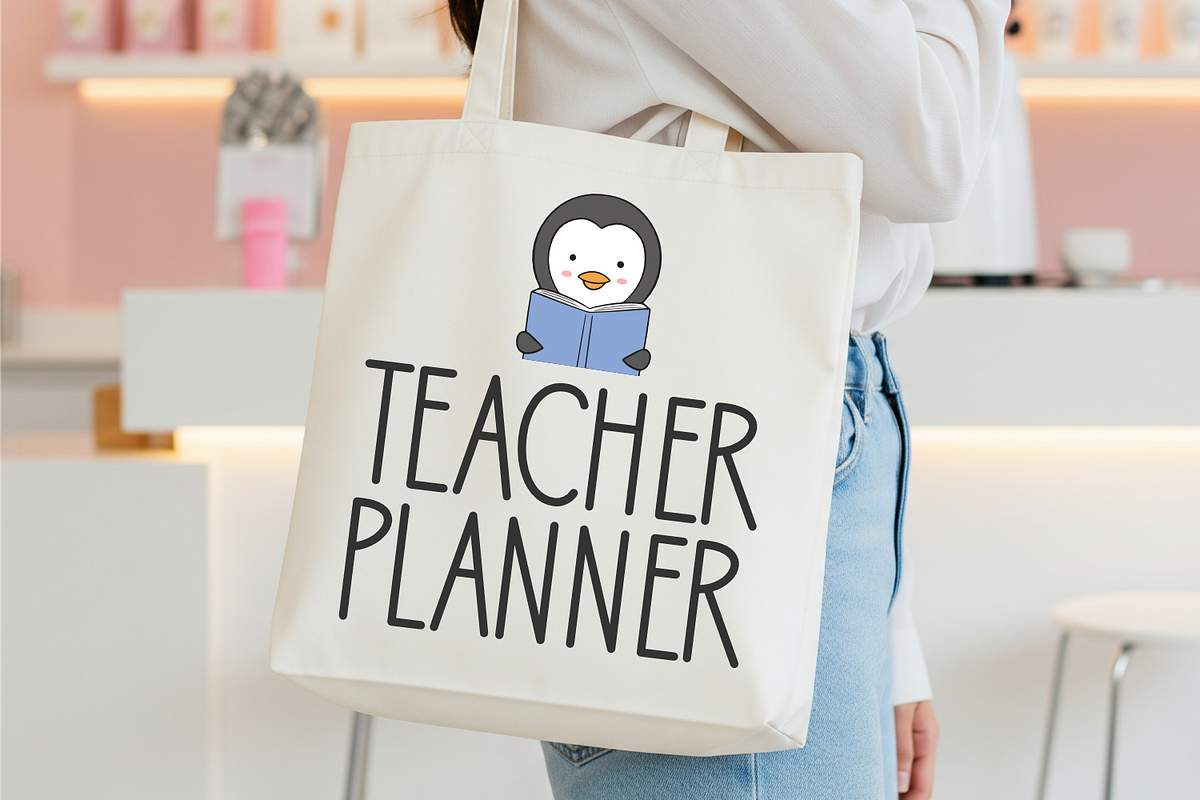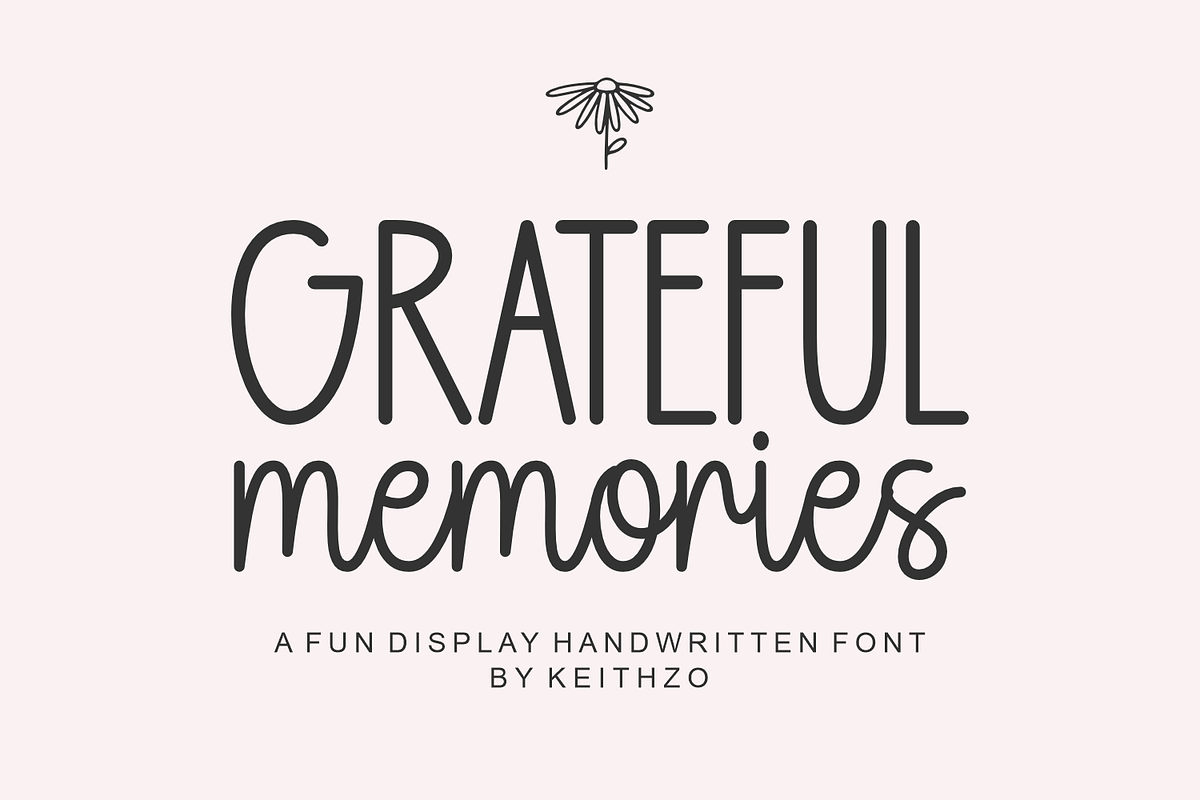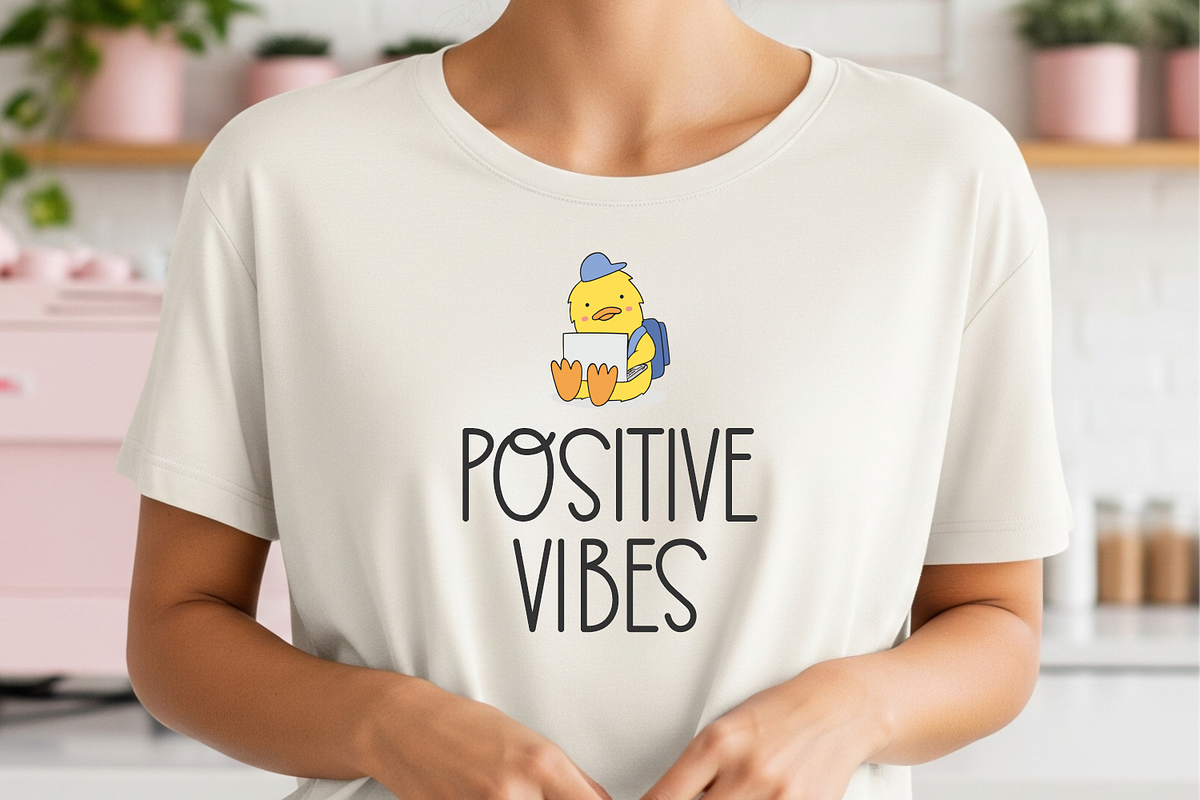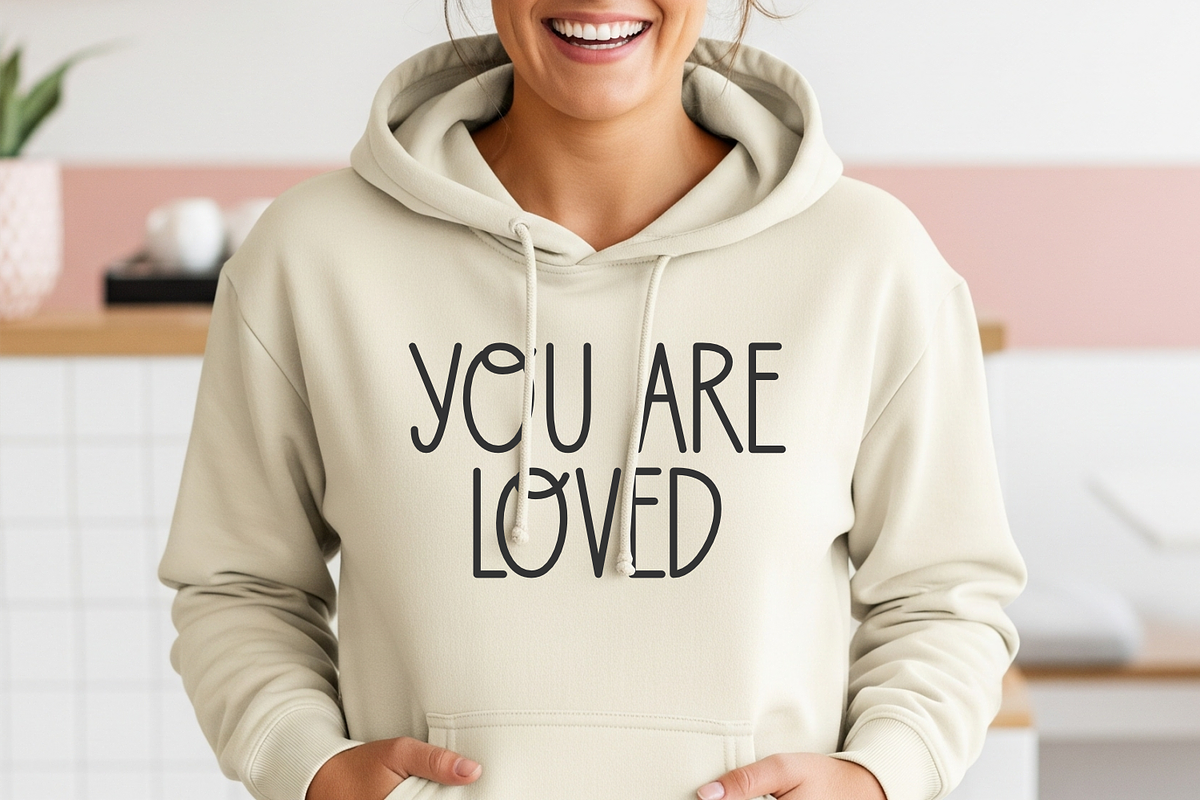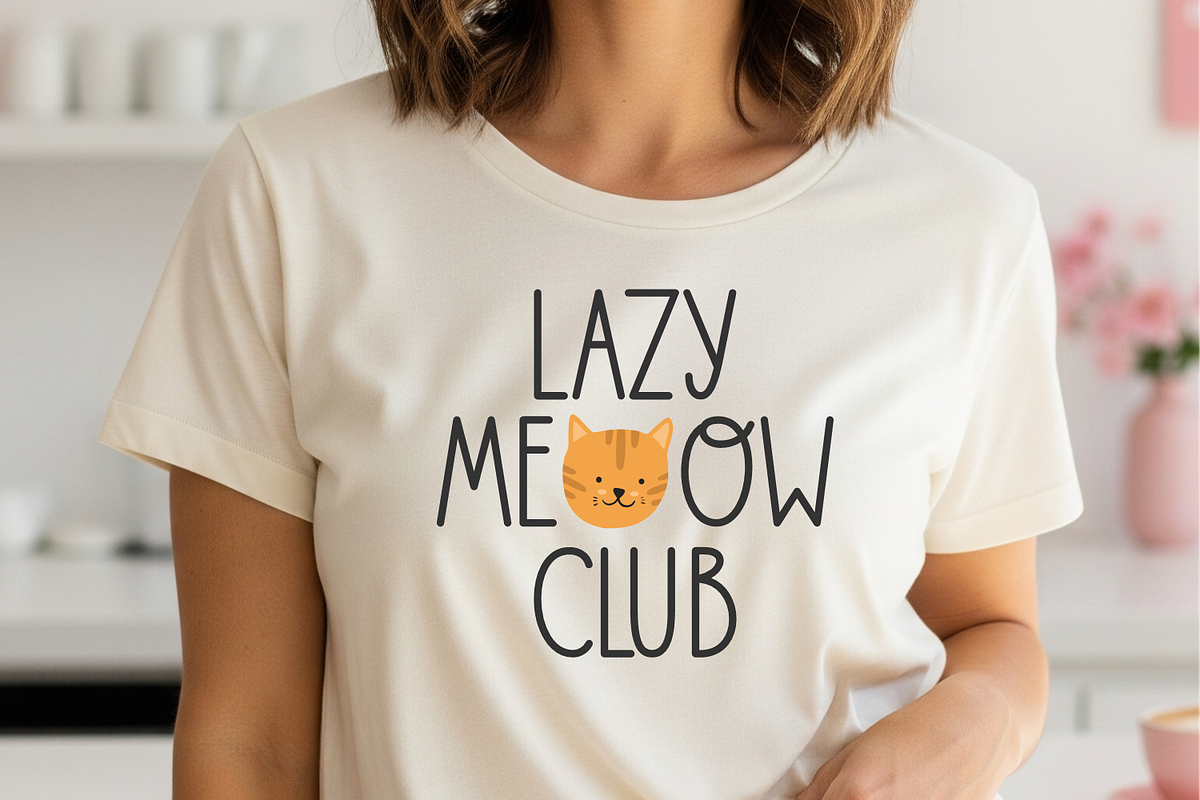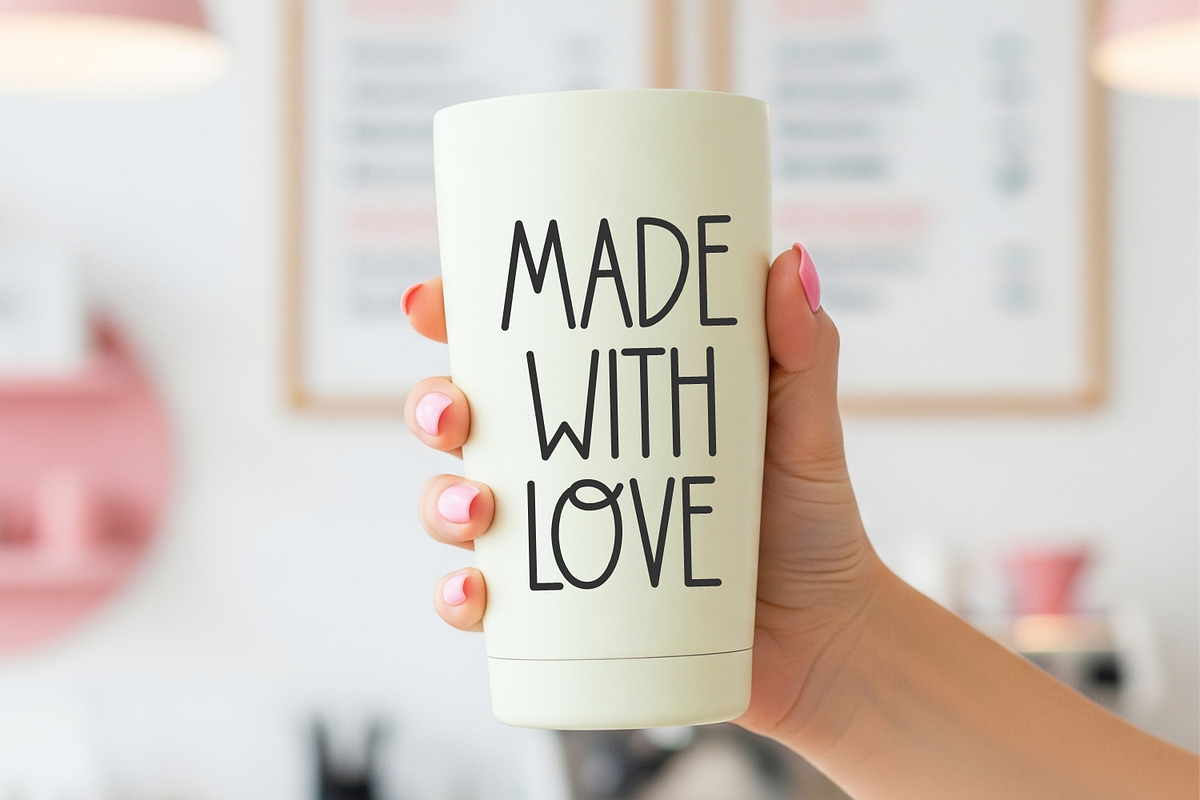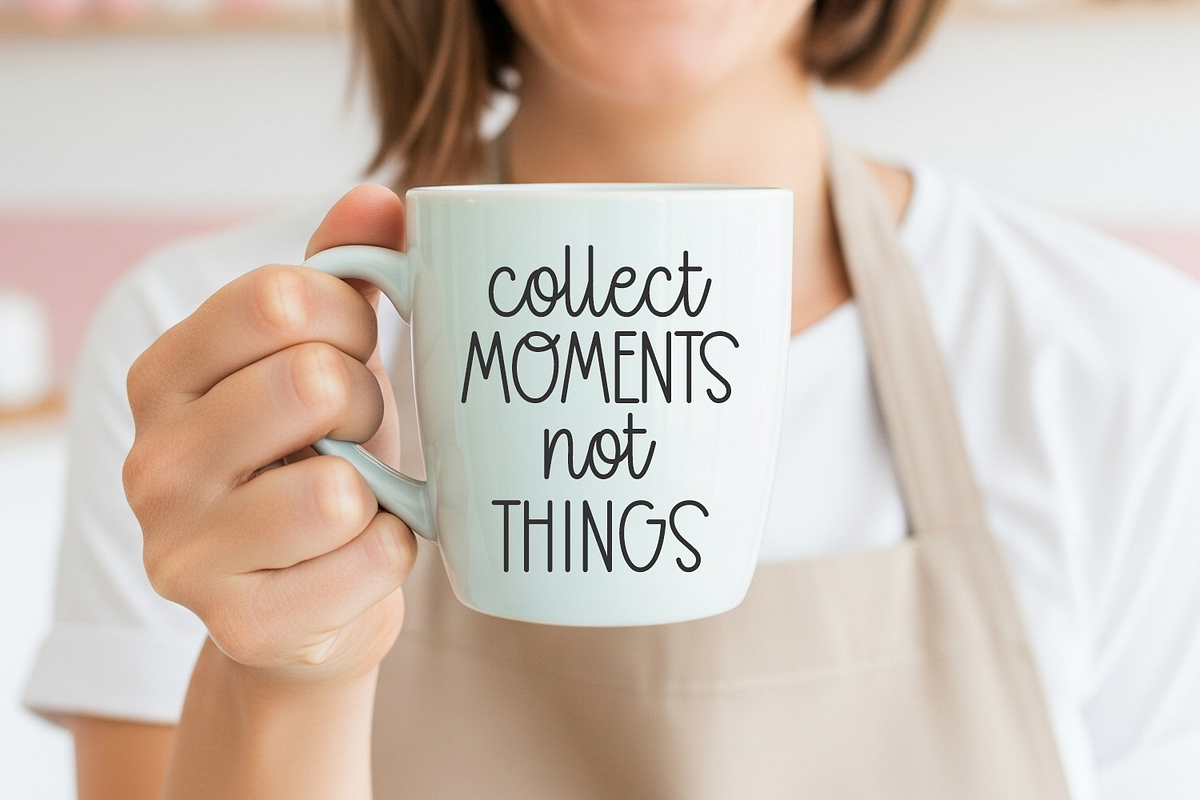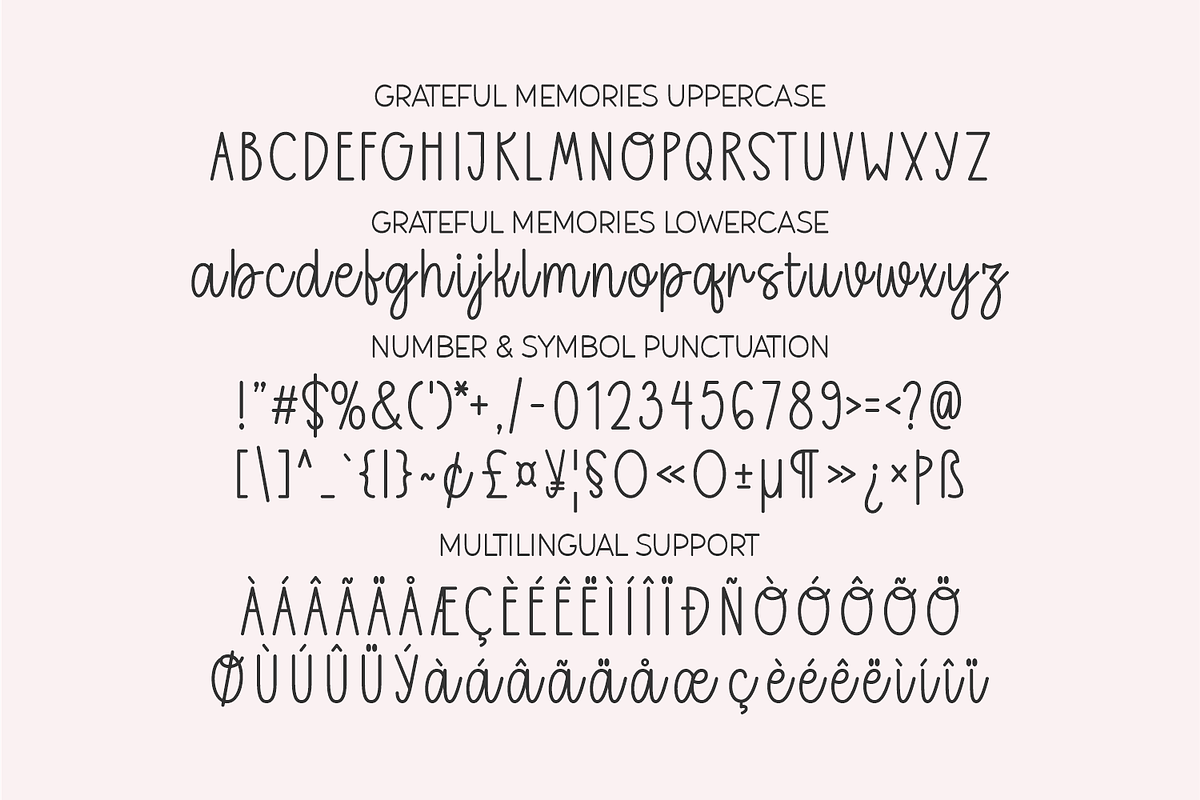
Grateful Memories - Whimsical Font
Introducing Grateful Memories, a Monoline Handwritten Font with a heartwarming essence at its core. Infused with tender warmth and sincere feelings, this font radiates softness through each carefully crafted curve and lovingly made stroke. Mirroring the rhythm of natural handwriting, its fluid monoline structure bestows a harmonious elegance onto every design. Perfect for adding a personal, uplifting touch to your creativity, Grateful Memories amplifies the charm of any work. Smooth lines and rounded edges paint a picture of friendly approachability, making it the go-to font for everything, from hoodies and coffee mugs to t-shirts and tote bags. This font also beautifully packages heartfelt quotes, greeting cards, digital planners, and digital notes. Ideal for branding and digital projects craving for a cozy, yet polished feel, Grateful Memories is your artistic companion in creating tangible impressions.